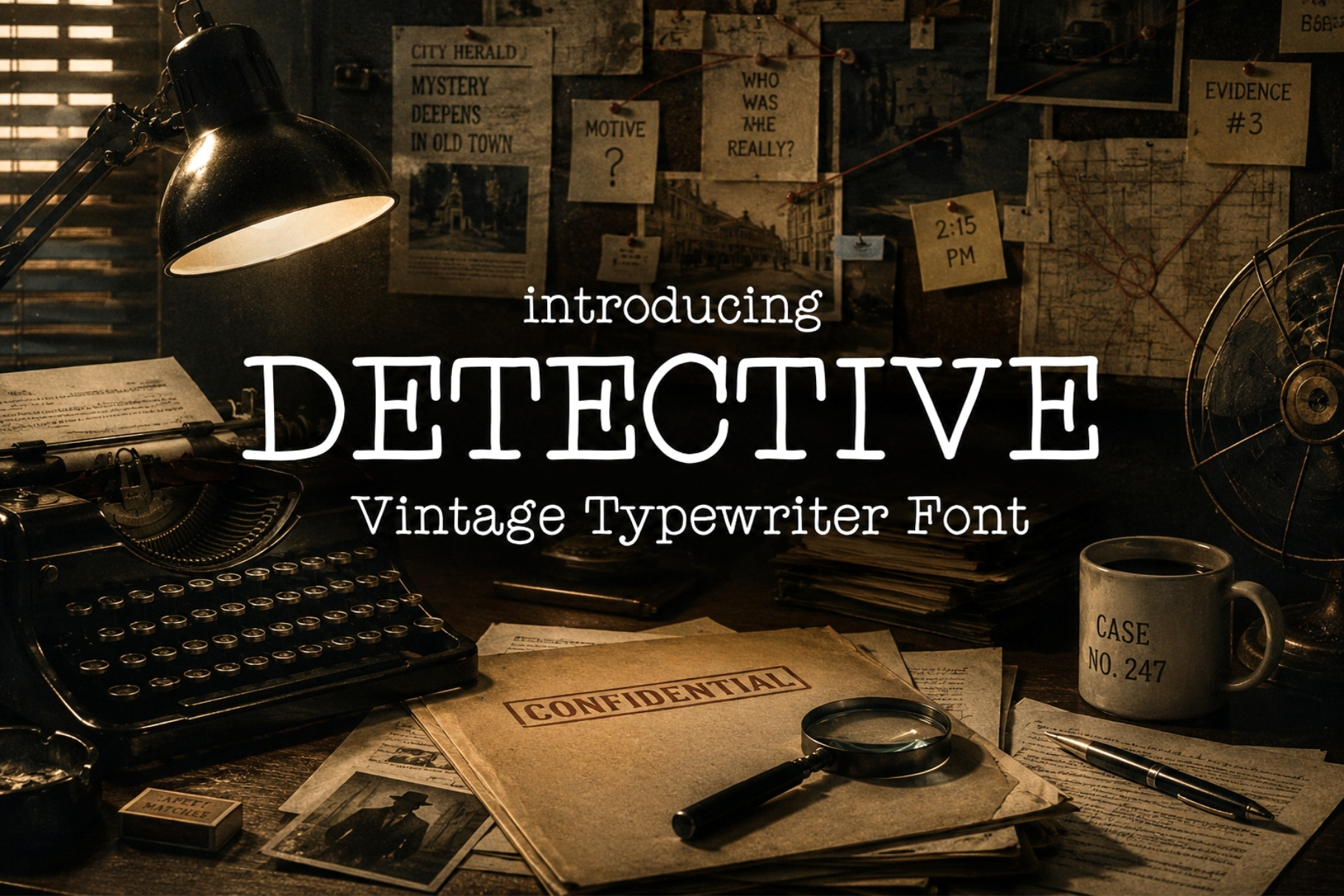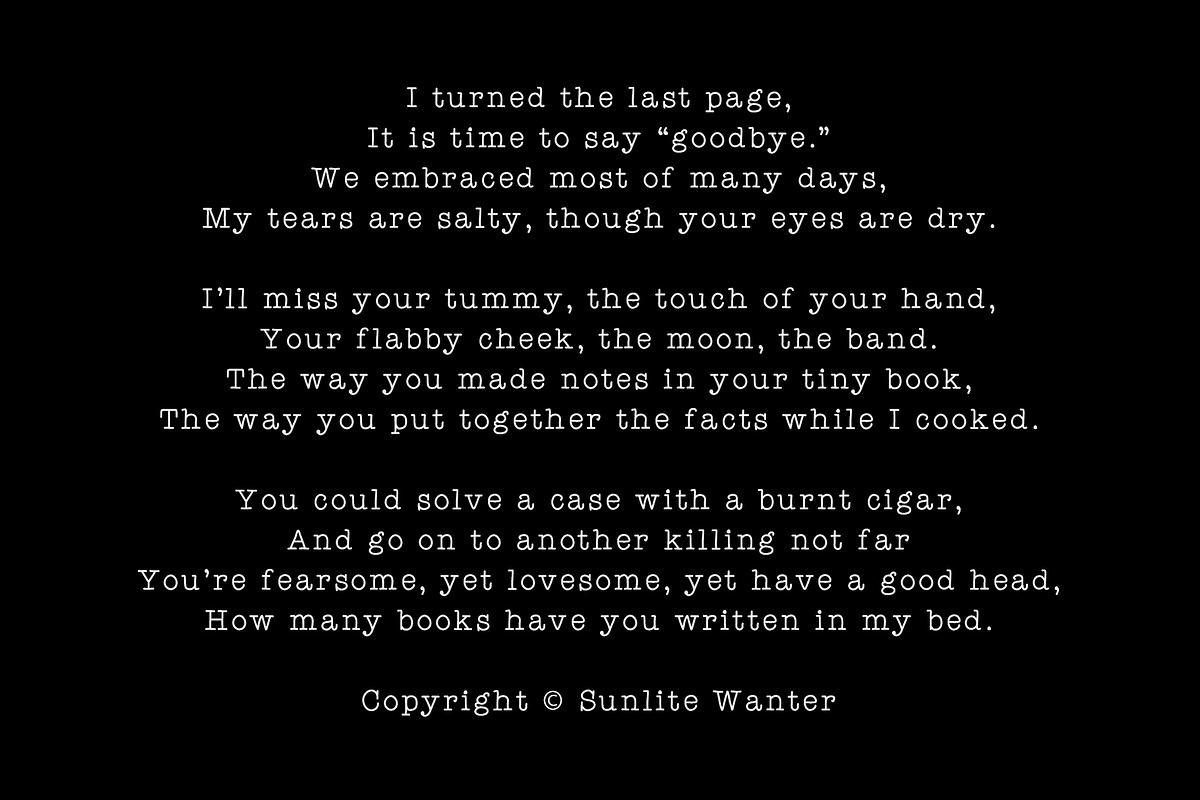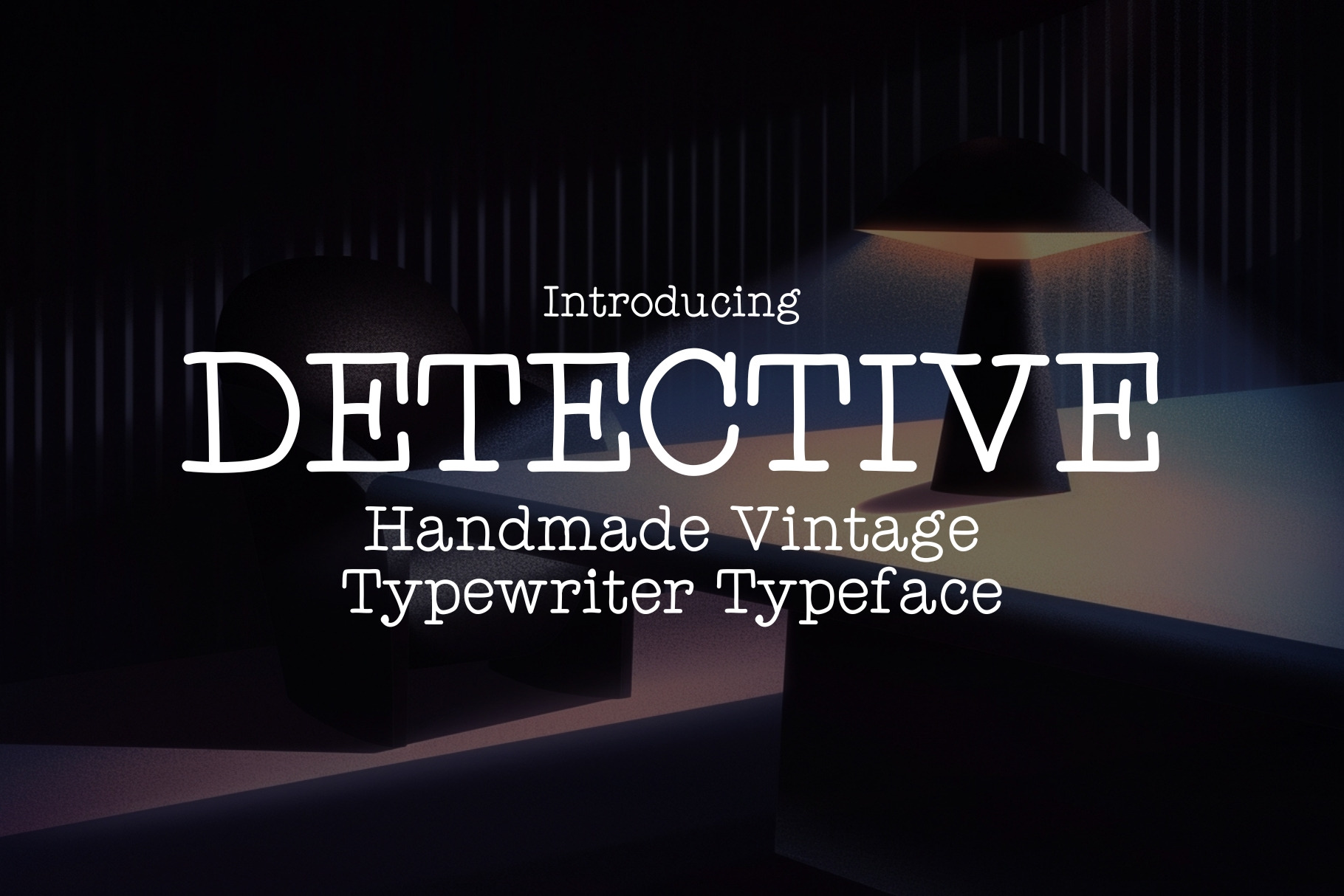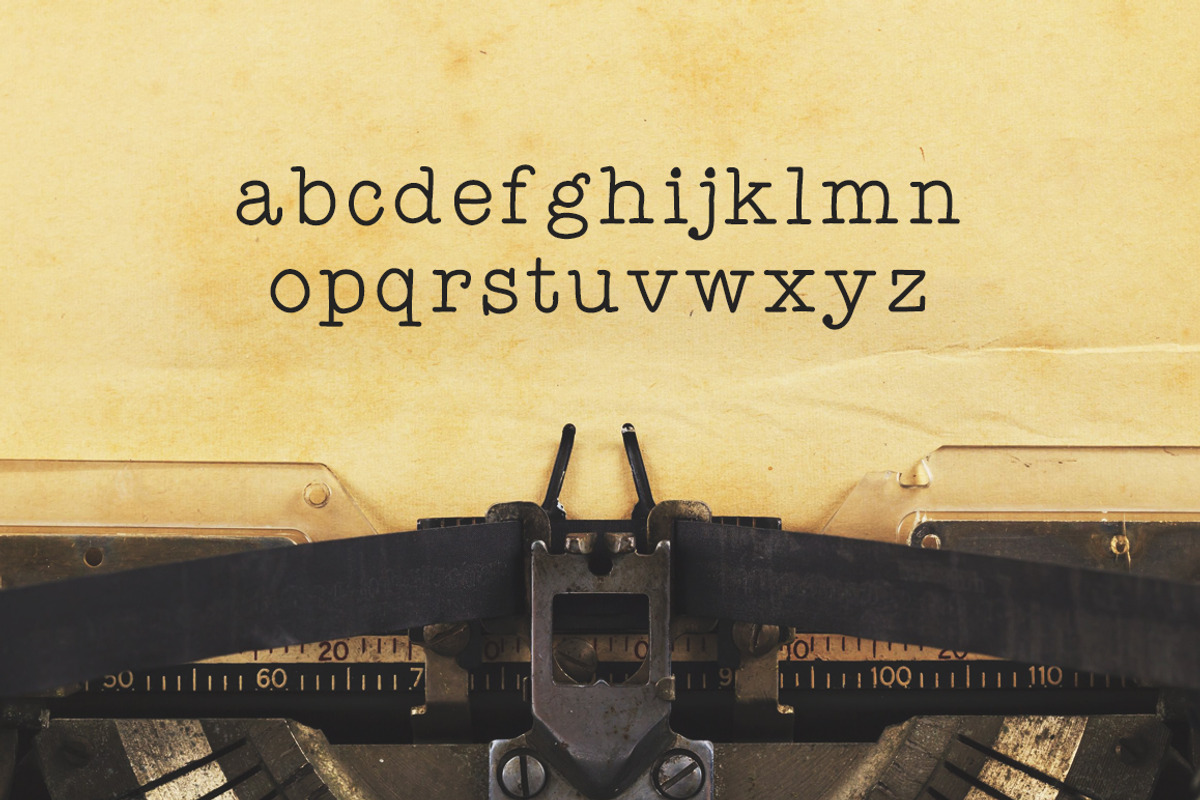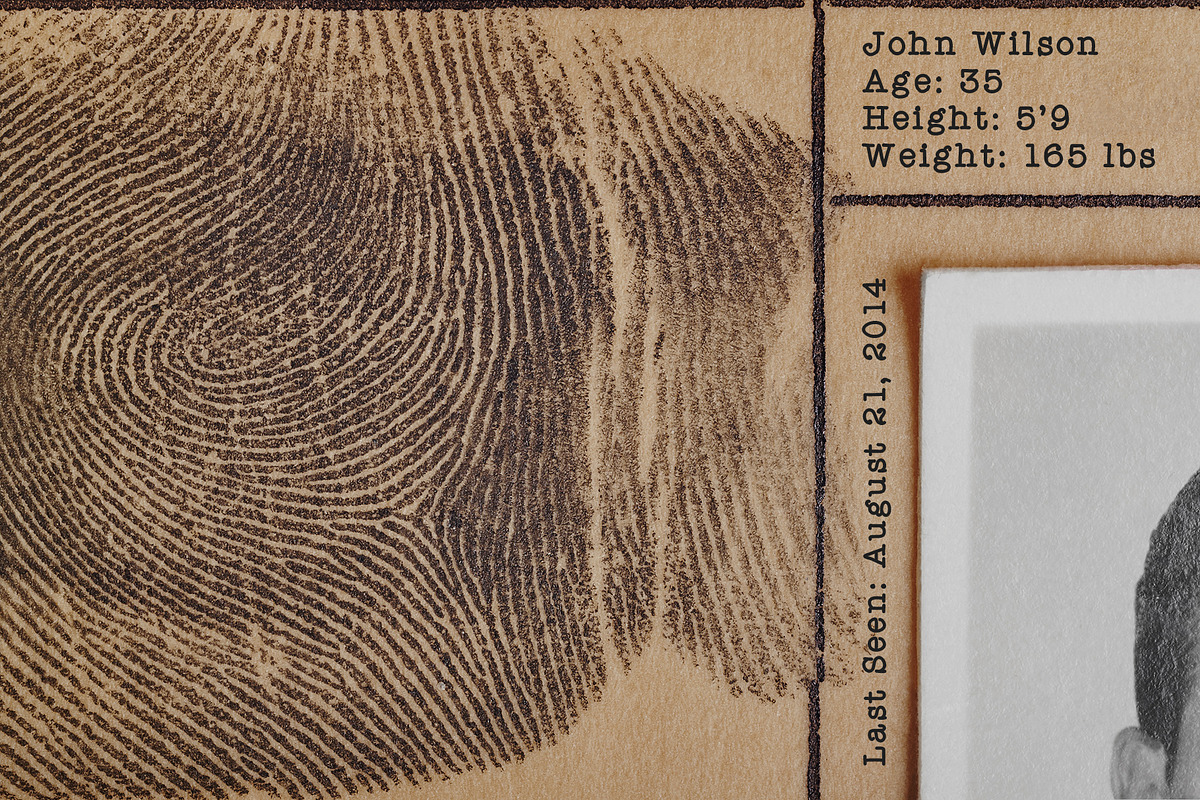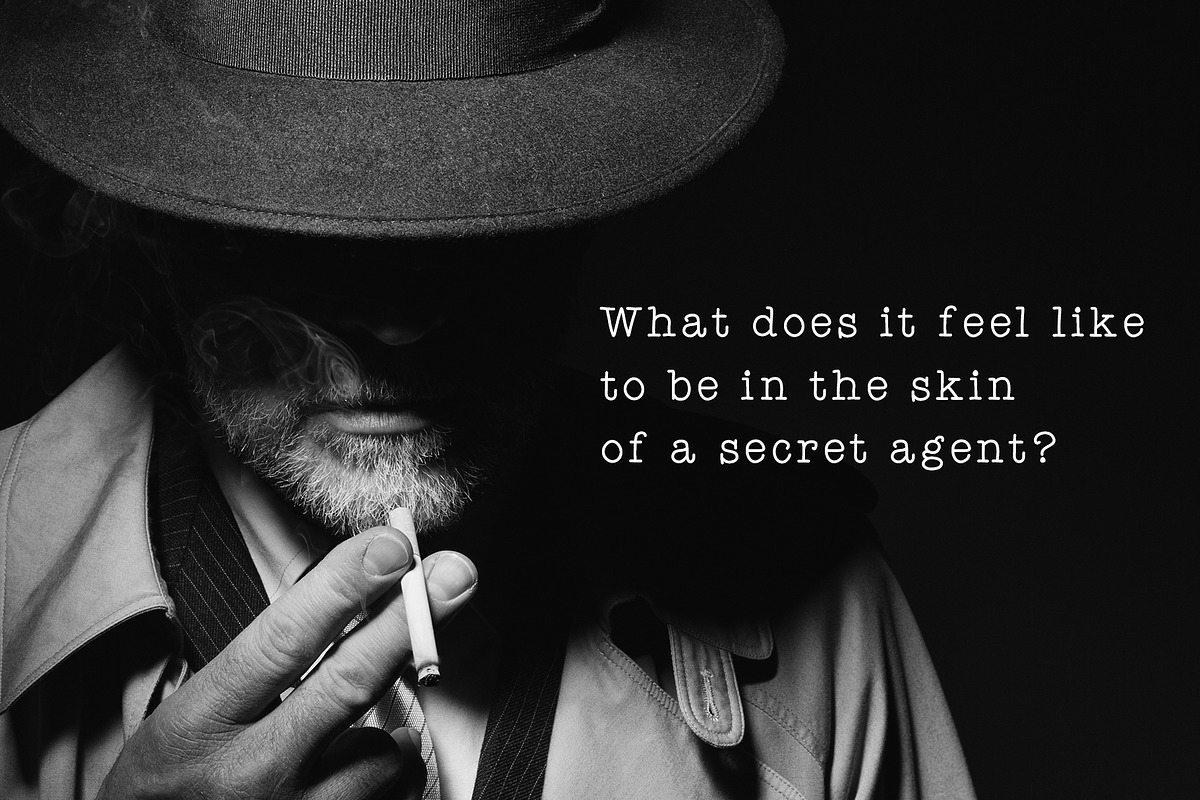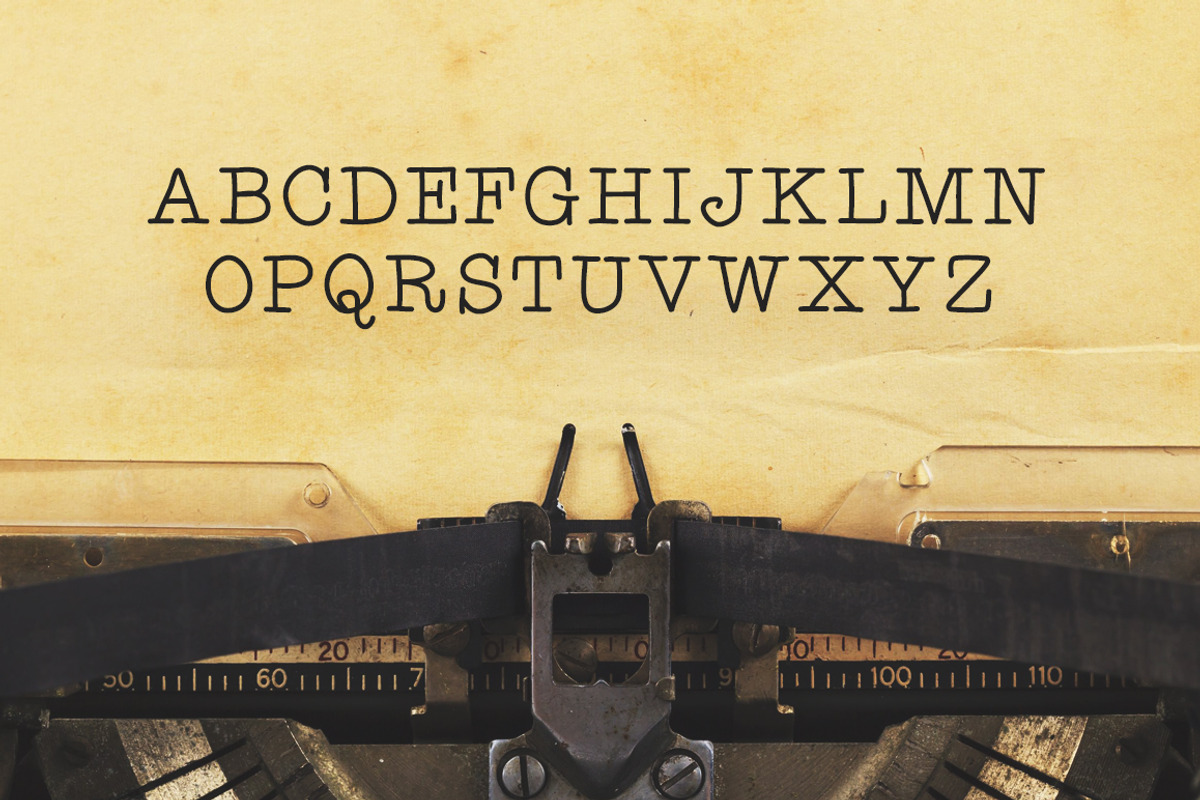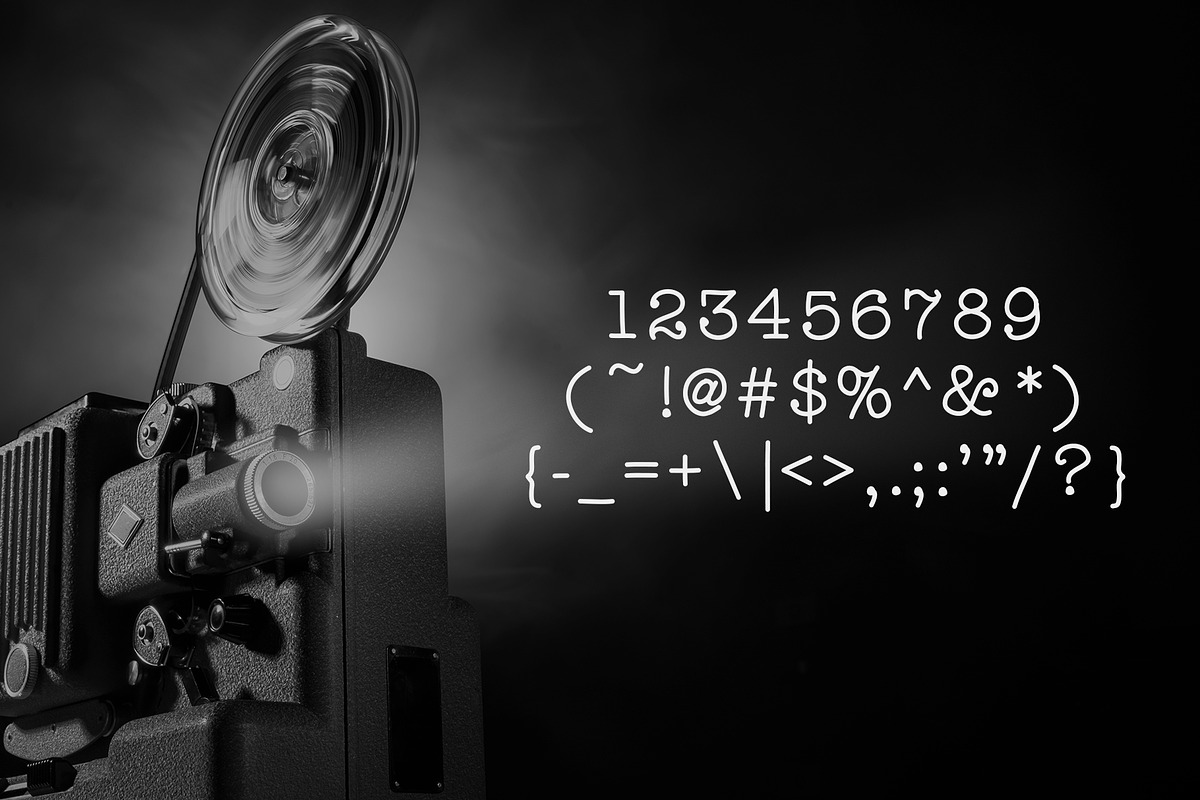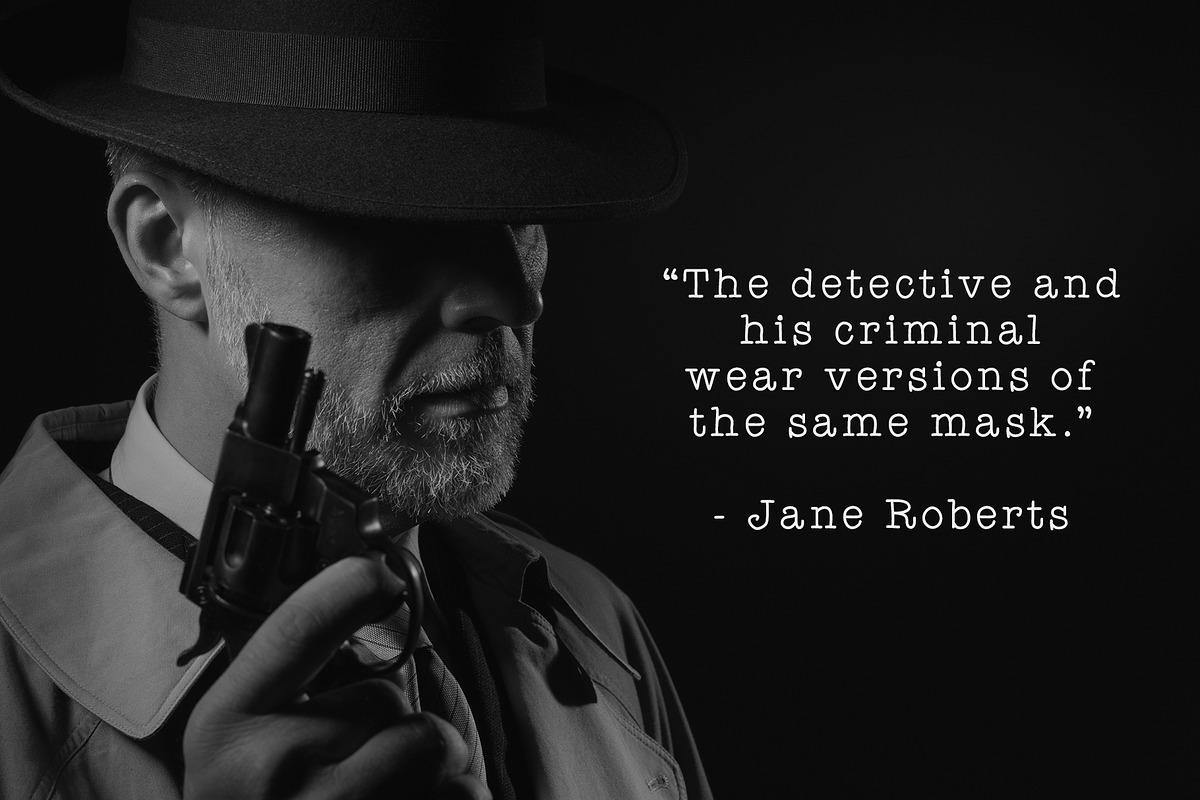
Detective - Typewriter Typeface
Detective is a classic mechanical typewriter font. The font was constructed 100% by hand. It is an ode to the invention that shaped reading habits and the idea of legibility, the typewriter. This font combines old-fashioned charm with modern typographic sensibilities. It can be used for business correspondence or in any work that requires an old-fashioned, personal look.